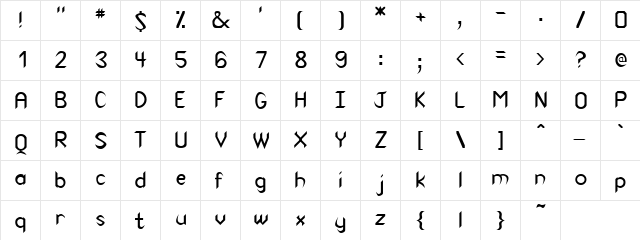
Snooze Candy Strip Regular
Design Context for Snooze Candy Strip Typeface
Snooze Candy Strip is a composed and adaptable typeface that performs quietly and consistently across a wide range of design contexts.